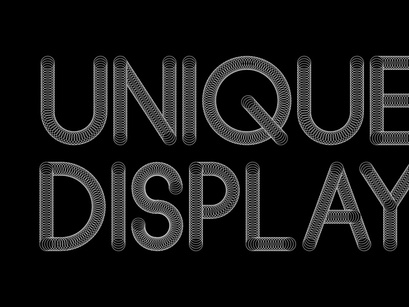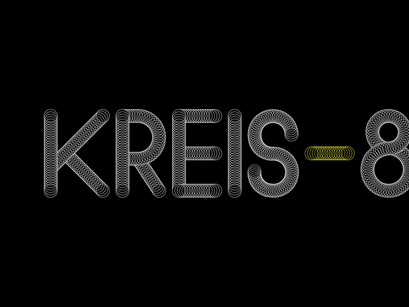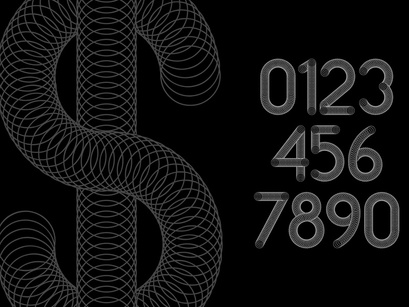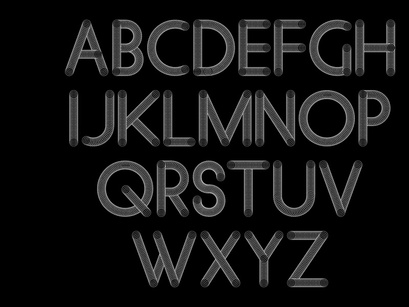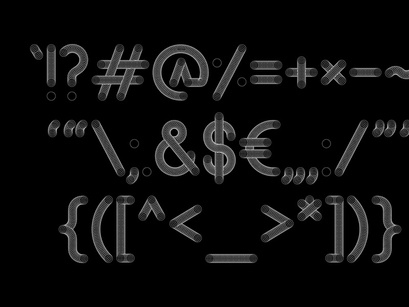
KREIS-8 is a simple and modern display font. This font is very suitable for the needs of branding, logos, technology themes and others.
Uppercase
Numbering and Punctuations